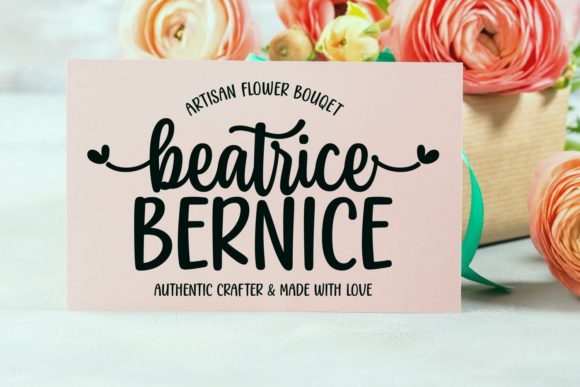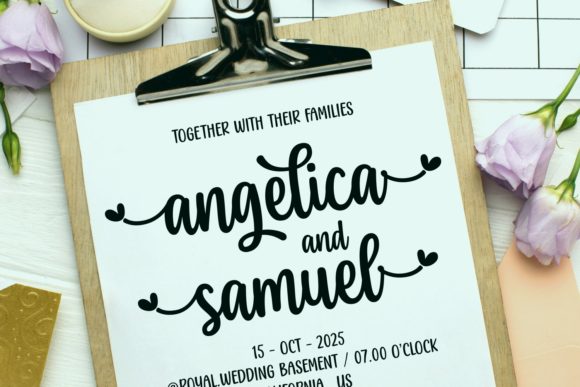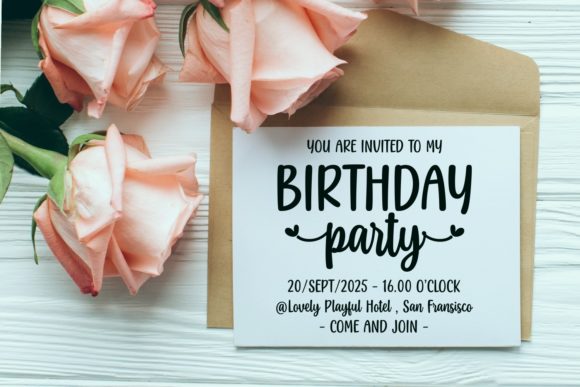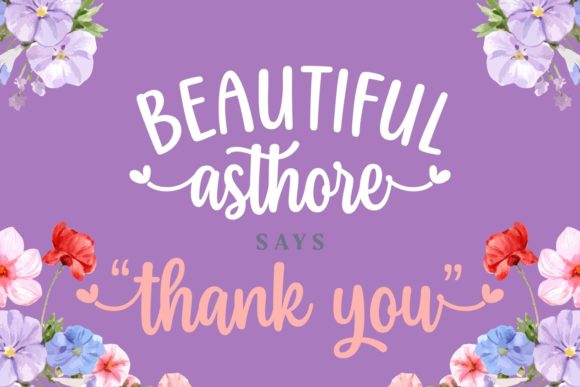
Unleashing the Magic of Beautiful Asthore Font
There’s something special about sitting at your desk, surrounded by scattered papers and half-finished designs, waiting for that elusive spark of creativity to strike. For designers, this moment is all too familiar. It’s when you stumble upon a font that transports you to a world of whimsy and romance, and suddenly, the possibilities seem endless. For me, that moment came when I discovered the Beautiful Asthore Font.
This cheerful and romantic script font is more than just a pretty face – it’s a tool that can elevate your designs to new heights. With its PUA encoding, you can access all of the glyphs and swashes with ease, giving you the freedom to create truly spectacular designs. Whether you’re a seasoned pro or just starting out, the Beautiful Asthore Font is an invaluable addition to any designer’s toolkit.
Beautiful Asthore Font Key Features
• Unique Characteristics: Asthore features a unique blend of modern and elegant design elements, including flowing curves and subtle flourishes, making it perfect for creative and artistic projects
Beautiful Asthore Font Review
I recently had the chance to work with the Beautiful Asthore font, and I must say it’s a lovely addition to any design project. ✨ The font’s elegant and whimsical feel makes it perfect for creating a romantic or vintage-inspired atmosphere. ✨ The varied letterforms and flourishes add a touch of personality to any text, making it stand out from more straightforward fonts.
One of the things I appreciate about Beautiful Asthore is its versatility. ✨ It can be used for both display and body text, making it a great choice for a wide range of projects. The font also comes in a range of weights and styles, allowing designers to customize the look and feel to suit their needs.
• ⚠️ The font may be too ornate for some projects, potentially overwhelming the design.
• ⚠️ Some characters, such as the ‘g’ and ‘q’, may require careful placement to avoid visual clutter.
Overall, I’m impressed with Beautiful Asthore and would recommend it to designers looking to add a touch of elegance and whimsy to their projects. While it may have some limitations, the font’s unique character and versatility make it a valuable addition to any design library.
Getting the Most Out of Beautiful Asthore Font
For best results, use the Beautiful Asthore font in combination with other elegant fonts to create a cohesive look.
Experiment with different font sizes, colors, and styles to achieve the desired visual impact.
Use the font to create eye-catching headlines, titles, and other text elements that grab attention.
The Beautiful Asthore font is ideal for:
Wedding invitations and station
Alternatives to Beautiful Asthore Font
Great Vibes is a modern script font that is perfect for creating elegant and sophisticated designs. It is ideal for use in wedding invitations, greeting cards, and other formal events. It has a similar feel to Beautiful Asthore Font but with a more refined and polished look.
Comparison: Great Vibes Font has a more consistent and uniform stroke width compared to Beautiful Asthore Font, which can give it a more elegant and sophisticated look.
Carolyna Pro is a high-end script font that is designed for use in luxury branding and advertising. It has a similar feel to Beautiful Asthore Font but with a more dramatic and elegant look. It is perfect for use in high-end fashion, beauty, and lifestyle brands.